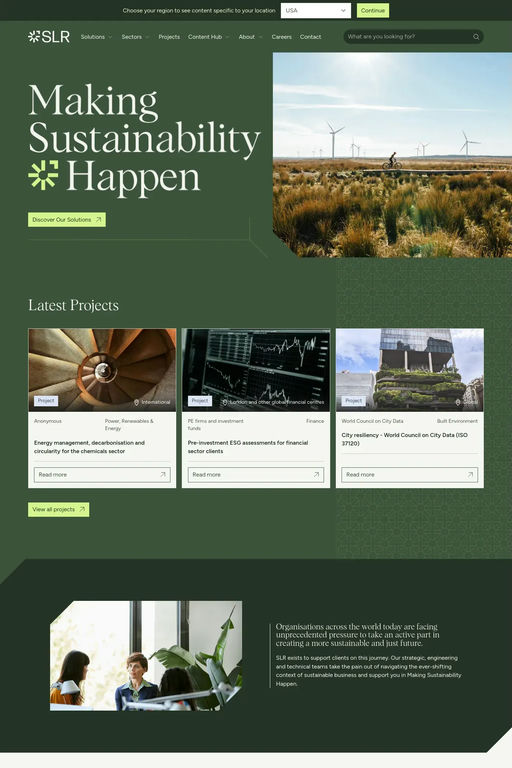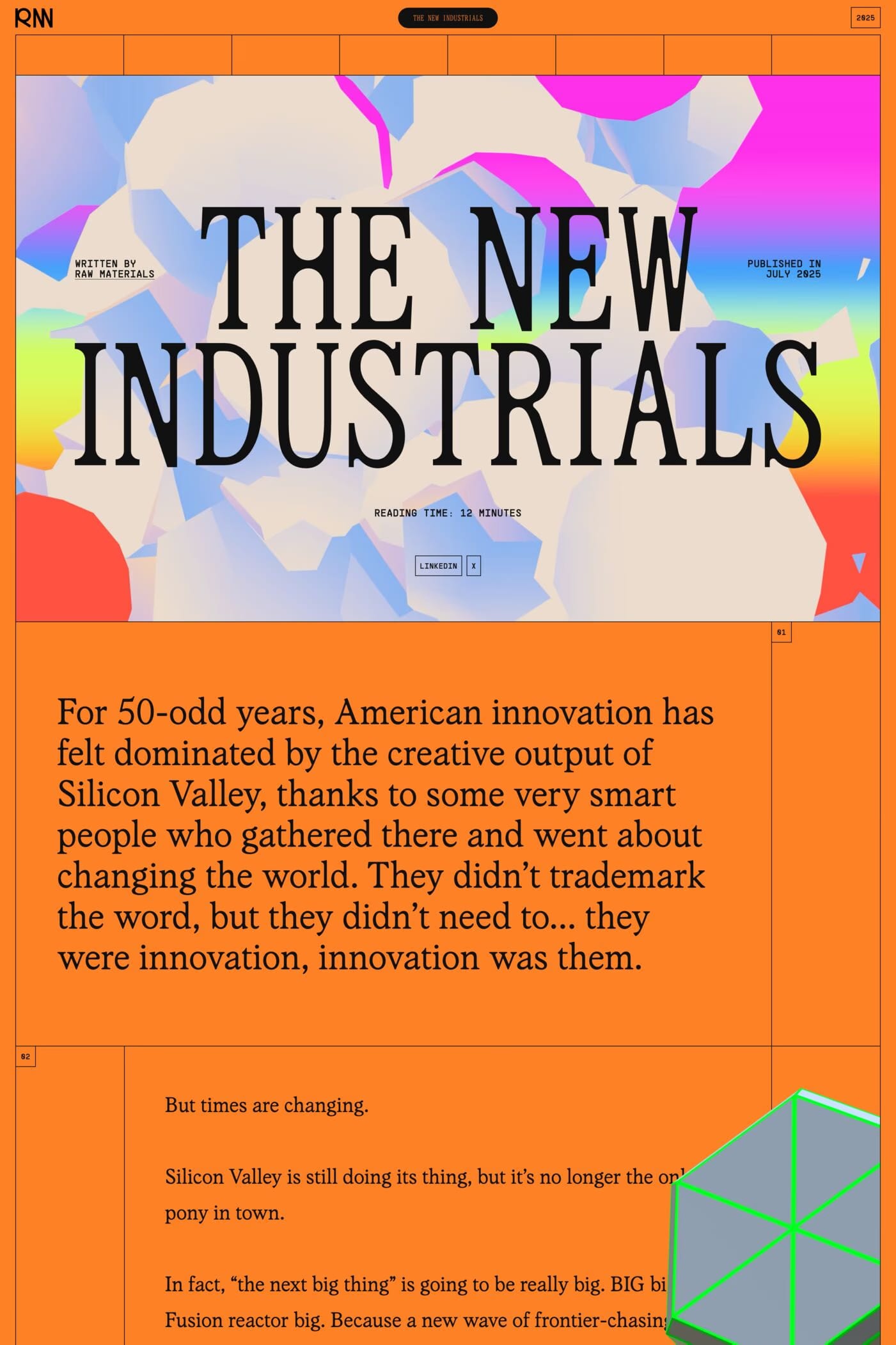
Albra is a serif typeface from Rellence.
Albra - Our Albra family is a high comprehensive collection of typefaces designed to work together in a wide range of application. From delicate headlines to small text application. Branding, editorial, packaging or logos. A timeless workhorse with many possibilities.
A1 features 2 websites using Albra, including The New Industrials and SLR Consulting. They lean towards Editorial, Typographic, and Colourful design styles, and they’re most often built with Next.js.